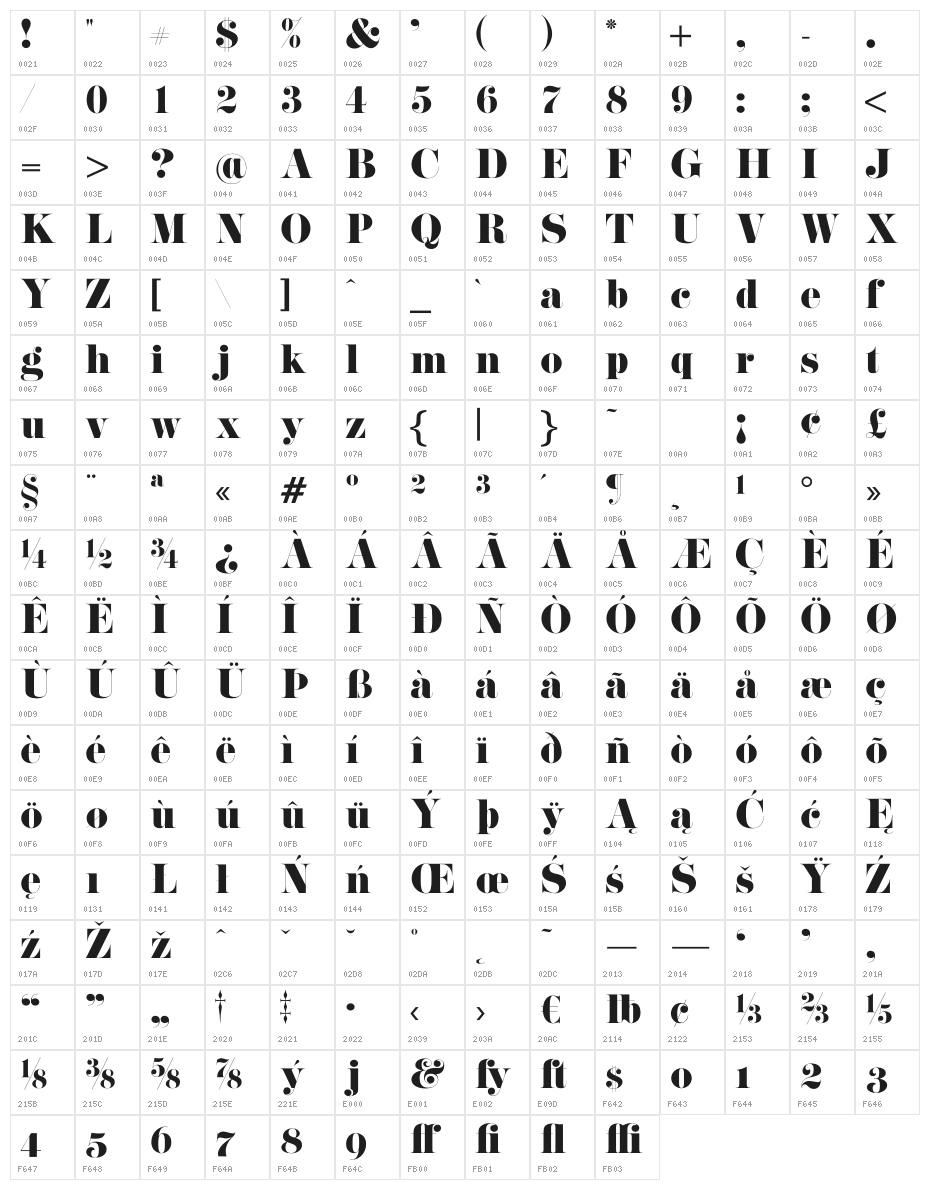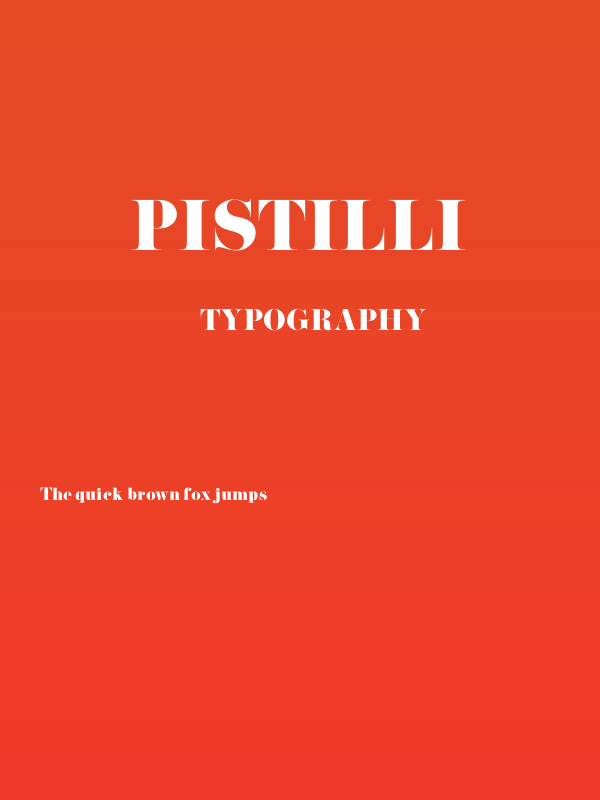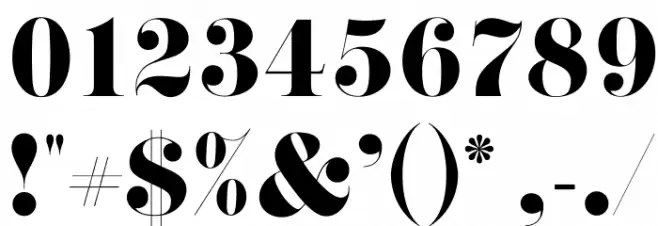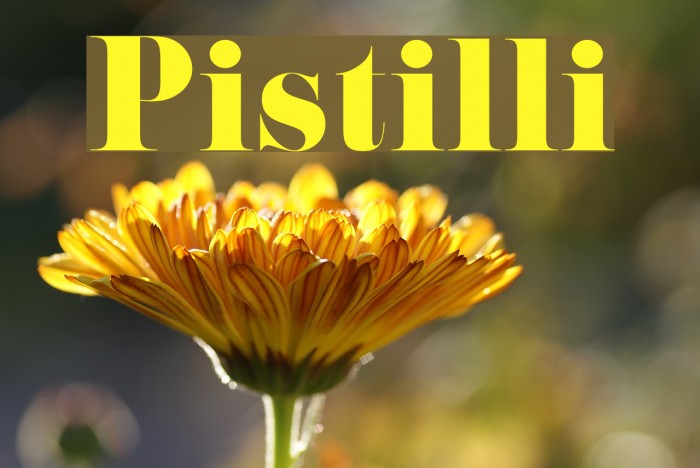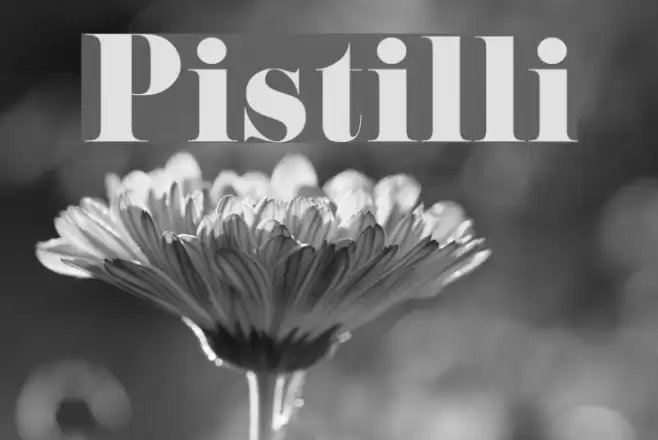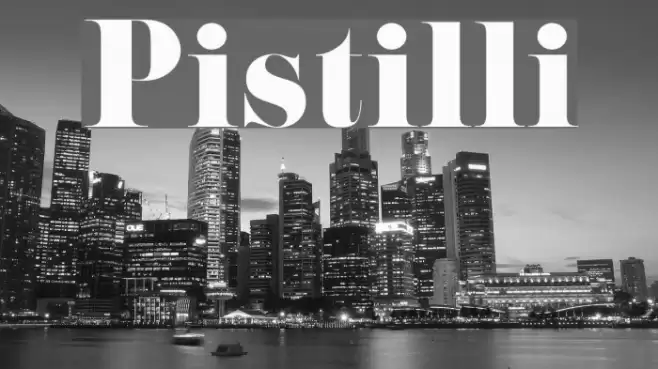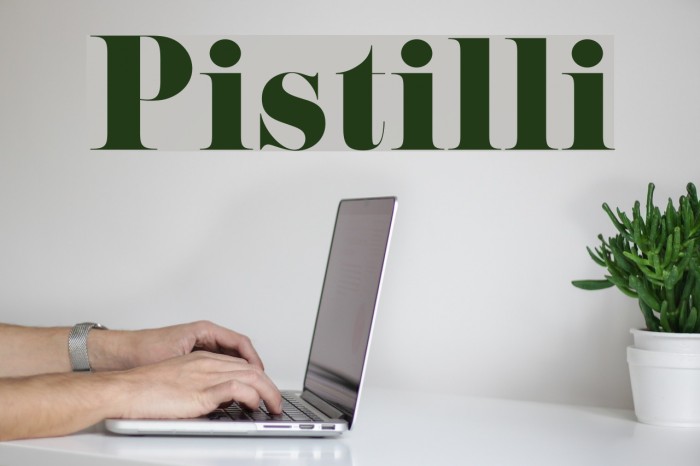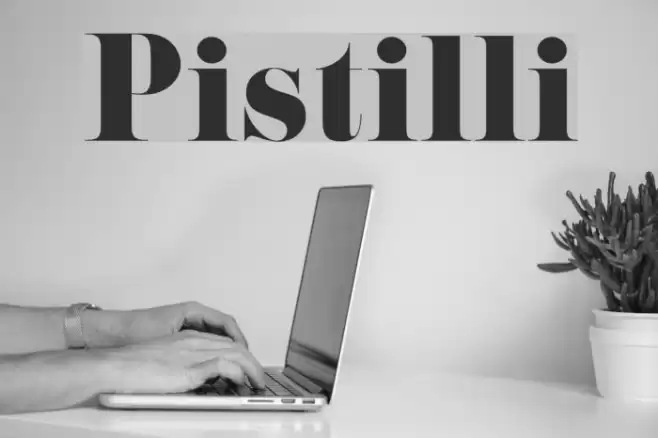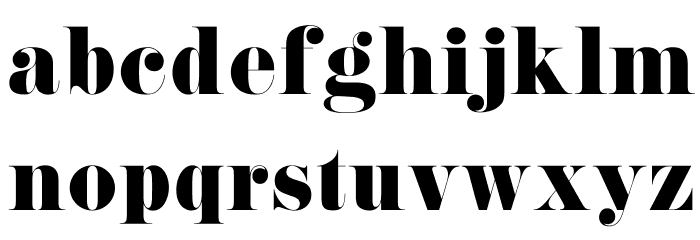
Pistilli Font
Pistilli Description
This font is a striking example of high-contrast serif typography, characterized by its bold, dramatic strokes and elegant curves. The uppercase letters exhibit a strong presence with thick vertical lines and thin horizontal lines, creating a sense of sophistication and authority. The lowercase letters maintain this contrast, offering a harmonious balance between readability and style. Numbers and special characters are crafted with the same attention to detail, ensuring consistency across all elements. The font's overall aesthetic is both classic and modern, making it versatile for various design applications.
| Proposed Projects | Ideal for luxury branding, editorial design, high-end packaging, and elegant invitations. |